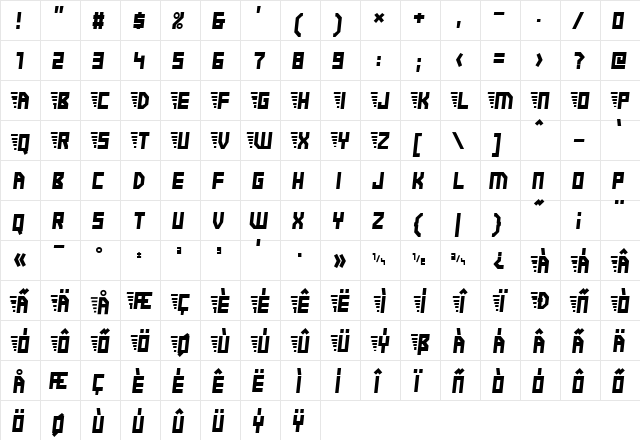
Electric Boots Regular
Design Context for Electric Boots Typeface
Electric Boots has a distinctly futuristic character, with geometric precision and clean angles that feel at home in technology, gaming, and sci-fi contexts.
Pro Tip: Use Electric Boots in combination with a neutral sans for body text. Let it define the brand voice in headlines while keeping reading comfortable elsewhere.